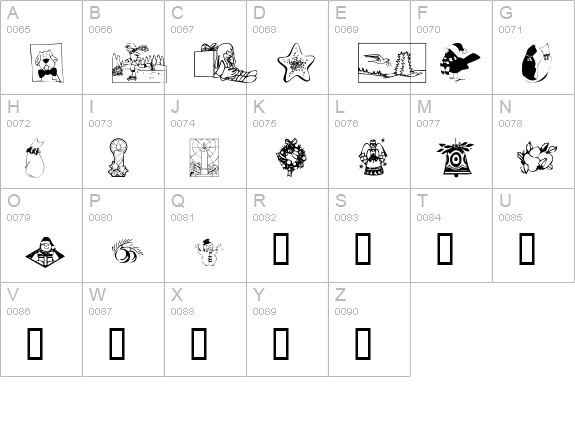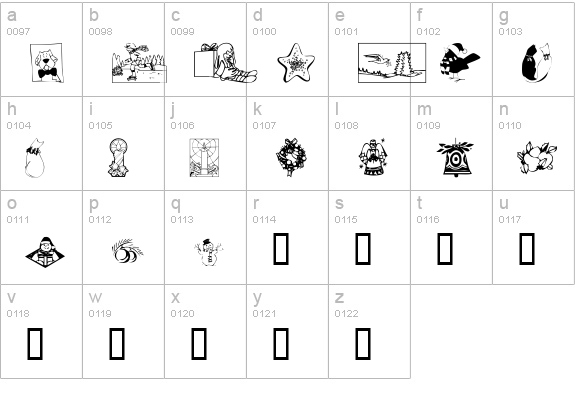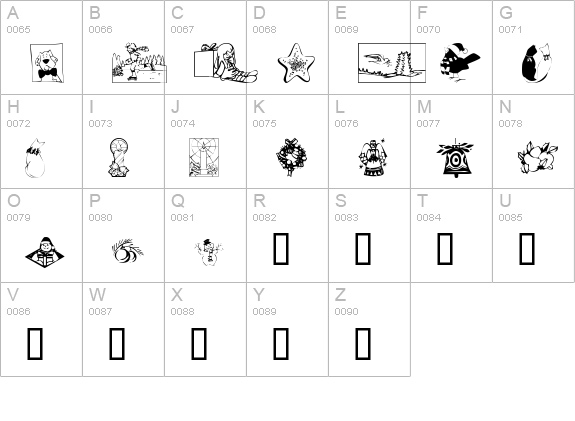
KR Christmas 2002 Dings 5 Font Details
The KR Christmas 2002 Dings 5 font is a delightful and festive typeface perfect for adding a touch of holiday charm to your designs. Featuring whimsical Christmas-themed symbols and icons, this font is sure to bring a cheerful spirit to any project. Best of all, the KR Christmas 2002 Dings 5 font is available for free download at FontsMarket.com. Whether you're creating holiday greeting cards, gift tags, or promotional materials, this charming font is a wonderful addition to your collection. Spread some holiday cheer with this fun and festive font today!